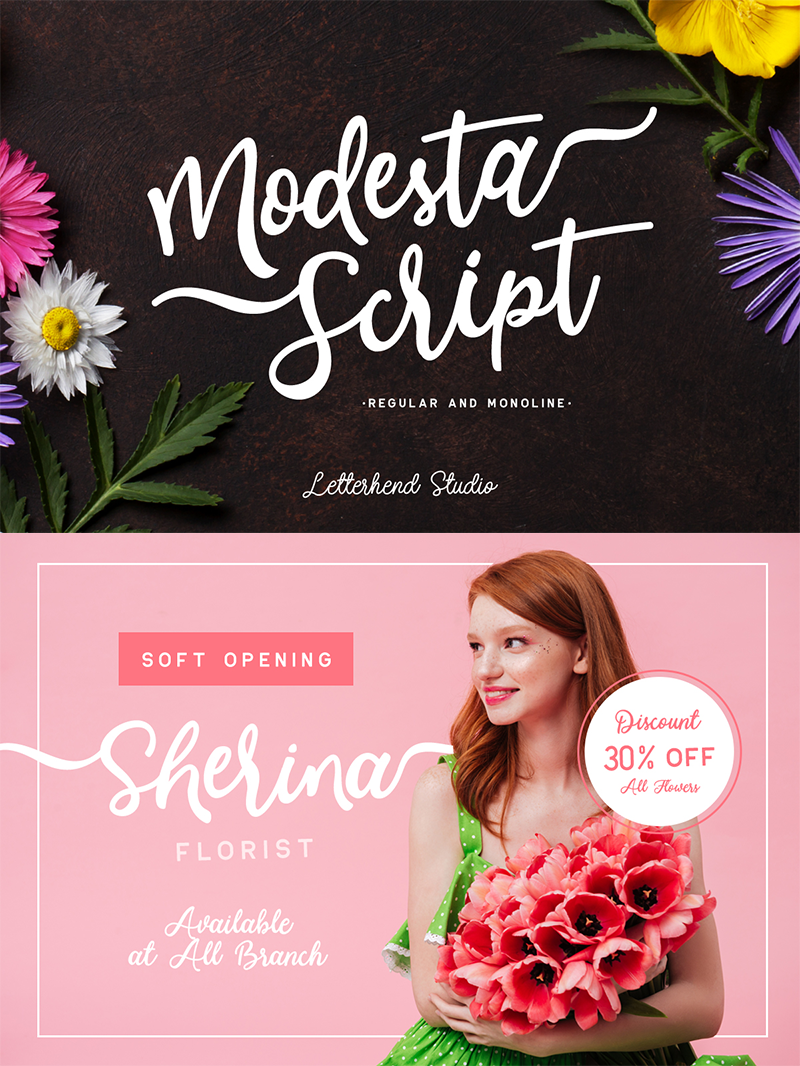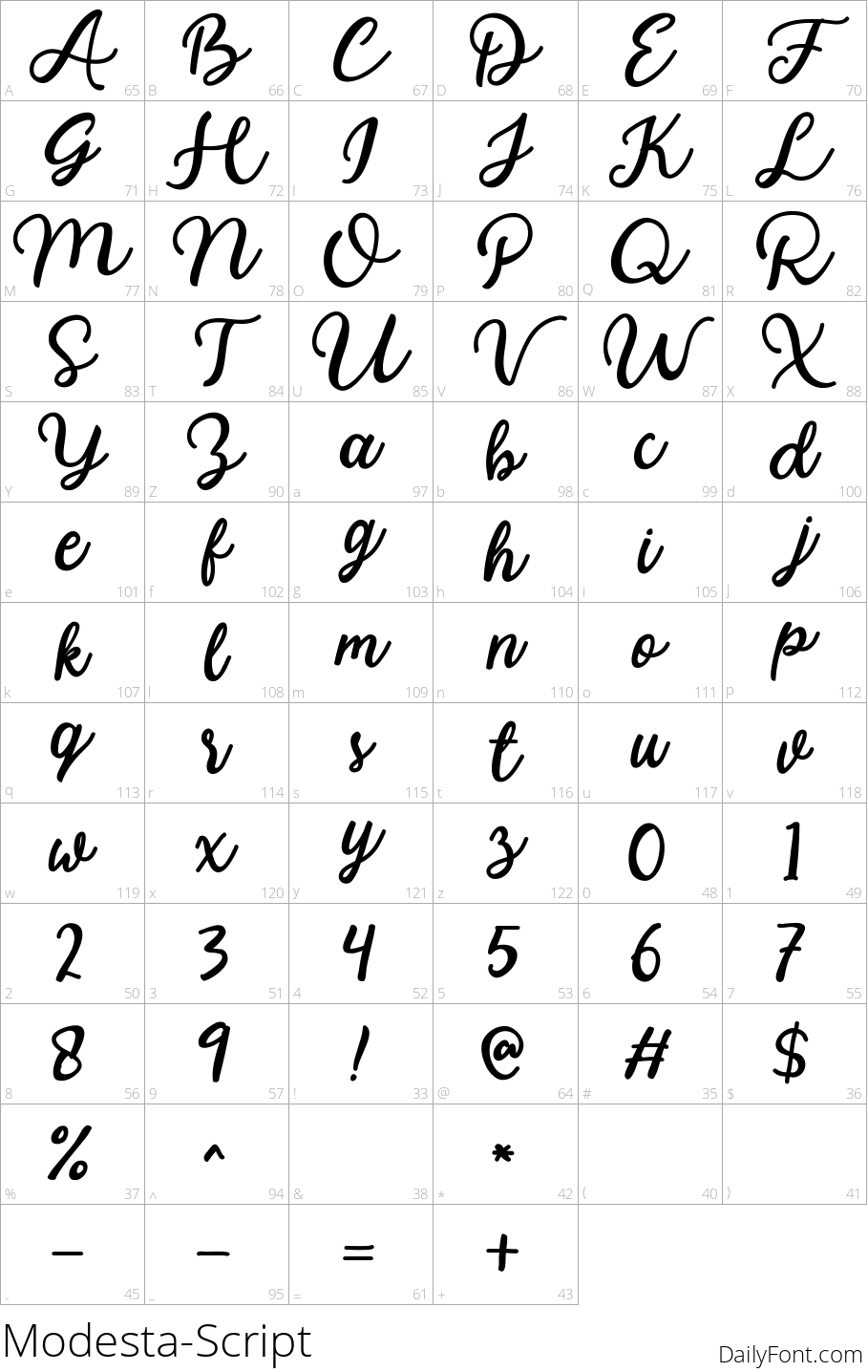
Modesta
Modesta Script is an enchanting font duo that seamlessly combines both monoline and regular styles. Ideal for projects with a feminine and girly theme, it adds a touch of elegance and charm. This versatile typeface allows designers to unleash their creativity with features like ligatures, stylistic alternates, and swashes, enabling the creation of customized lettering that stands out.
The Modesta Script font set is perfect for a variety of applications, from invitations and greeting cards to branding and social media posts. Additionally, it supports multiple languages, making it accessible for a global audience. Whether you are creating a sophisticated logo or a playful announcement, Modesta Script provides the flexibility and aesthetic appeal you need to make your designs shine. Discover the beauty of Modesta Script and elevate your creative projects today!